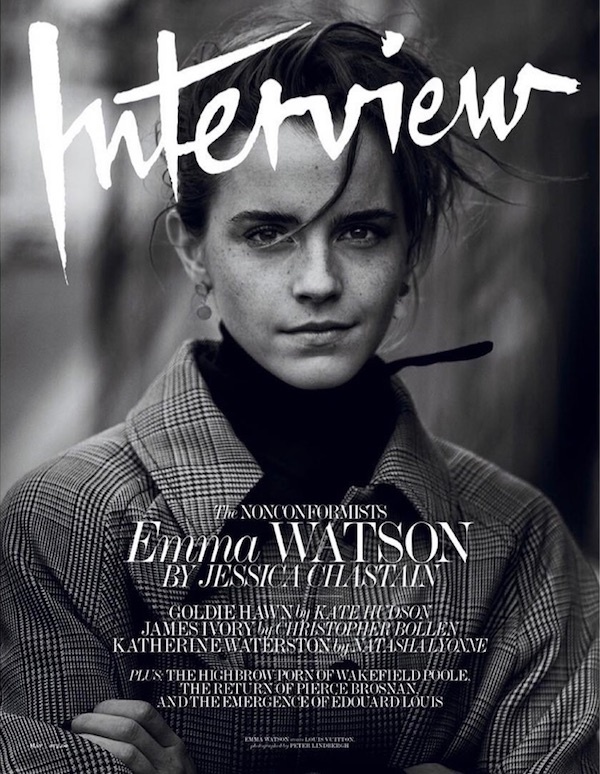
Can someone tell this fonts? I can’t find them
“Interview” is hand-lettered, I am pretty sure. The magazine has used many different, but similar, versions on its covers over the years.
The rest of the text is set in a light version of a Didone font like Scotch Modern, Modern 20, Benton Modern, Trivia, or many others.
Industrial 736 and Torino are very close, but like the others, they do not have a notch in the apex of the capital A.